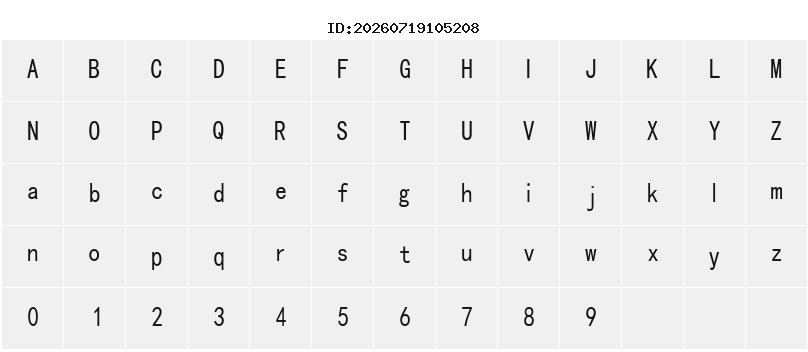
YEFONTJiaoKeShuPinYinTi Preview
• Font Name: YEFONTJiaoKeShuPinYinTi
• Full Font Name: 也字工廠教科書拼音體 標準
About YEFONTJiaoKeShuPinYinTi.TTF
YEFONTJiaoKeShuPinYinTi.TTF is a modern, elegant sans-serif font designed for ultimate readability and visual harmony. Perfect for branding, headlines, web design, and print materials.